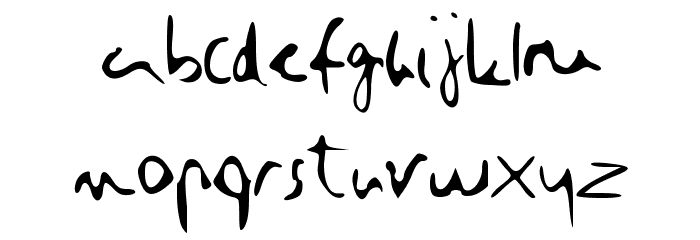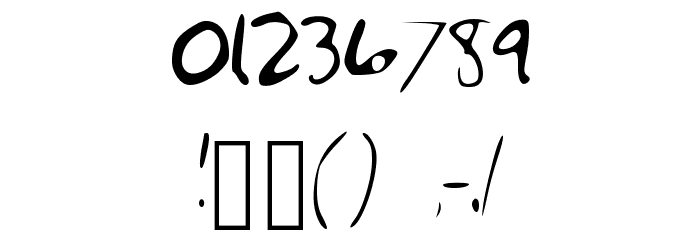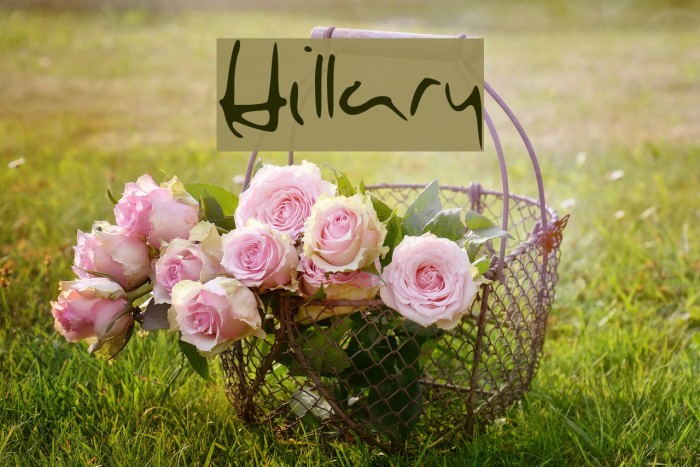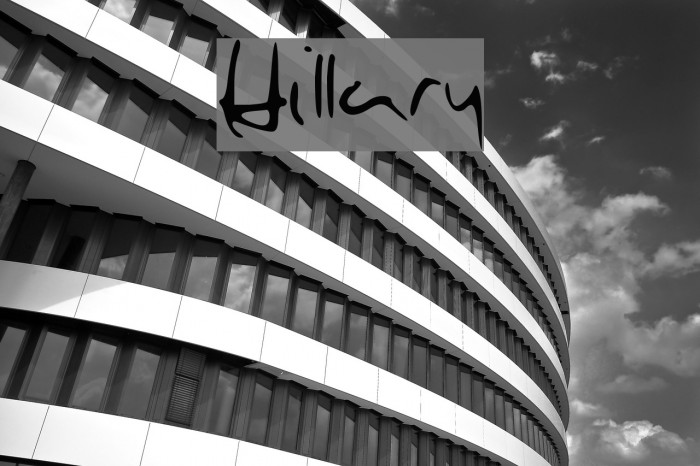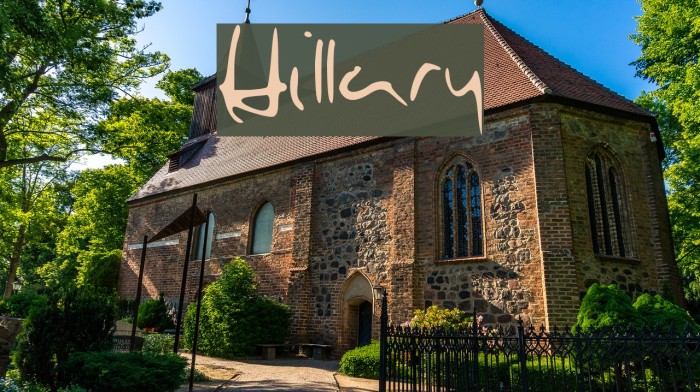
Hillary Font
This font showcases a dynamic and expressive handwritten style, characterized by its fluid and irregular strokes. The uppercase letters exhibit a playful and artistic flair, with varying heights and angles that give each character a unique personality. The lowercase letters maintain a consistent flow, enhancing the casual and informal appearance. Numbers are crafted with a similar freeform style, adding to the overall cohesive look. Special characters are included, maintaining the same energetic and spontaneous feel. This font is perfect for projects that require a personal touch or a creative, informal aesthetic.
A dynamic and expressive handwritten font with fluid, irregular strokes.
- Proposed Projects: Ideal for greeting cards, personal branding, artistic projects, and informal invitations.
- Overall Style: Casual, Artistic
- Use Case: Logos, Artistic projects, Informal invitations